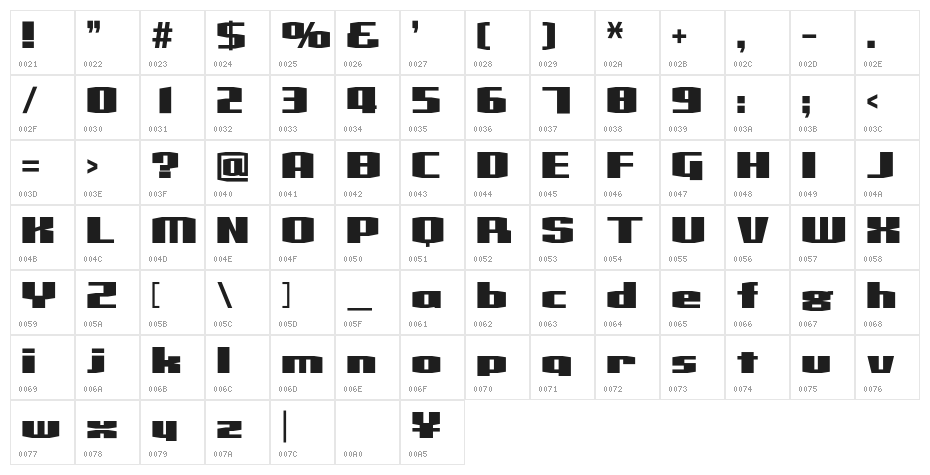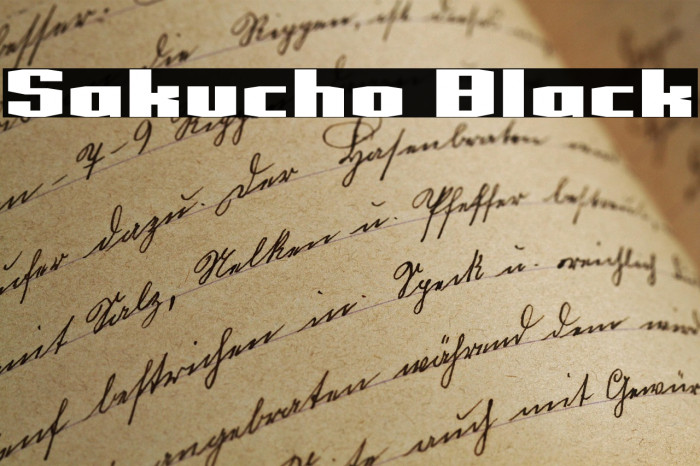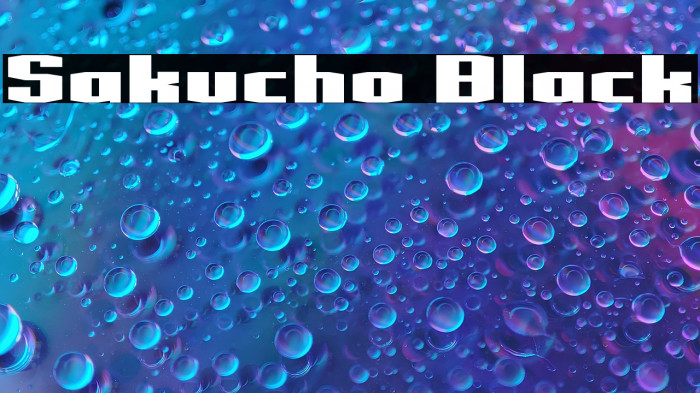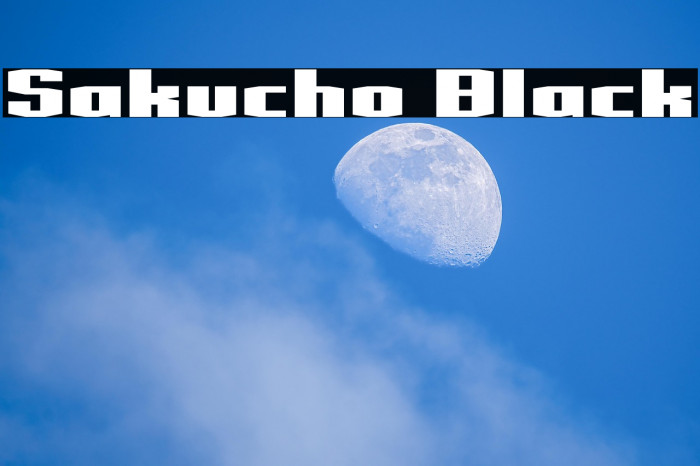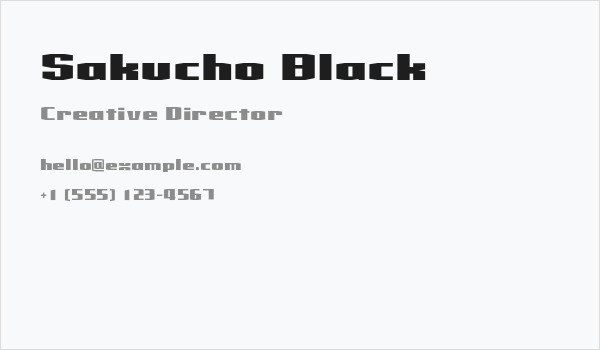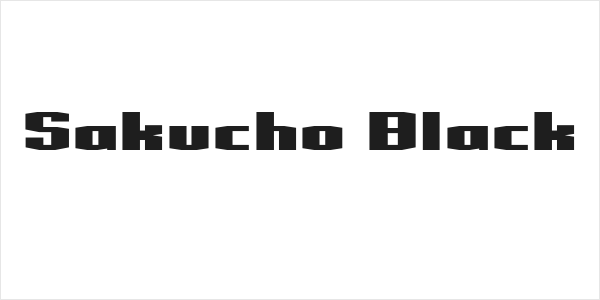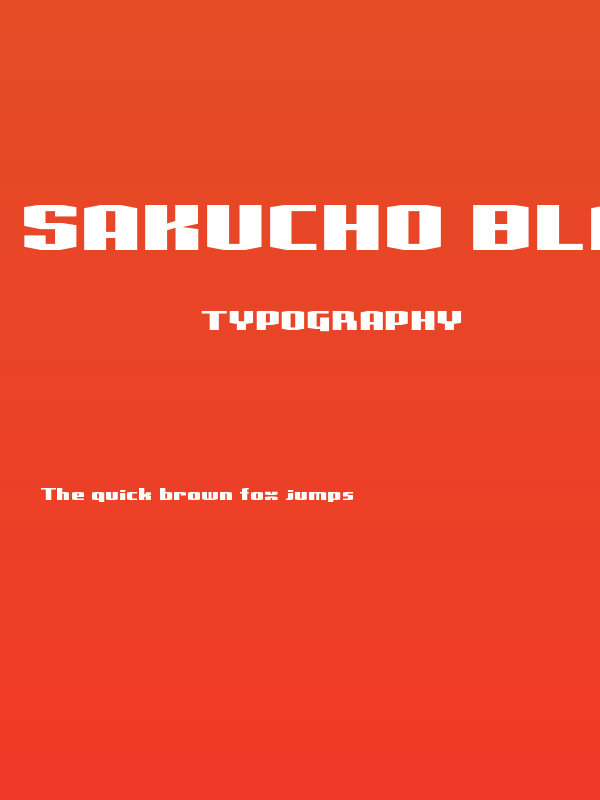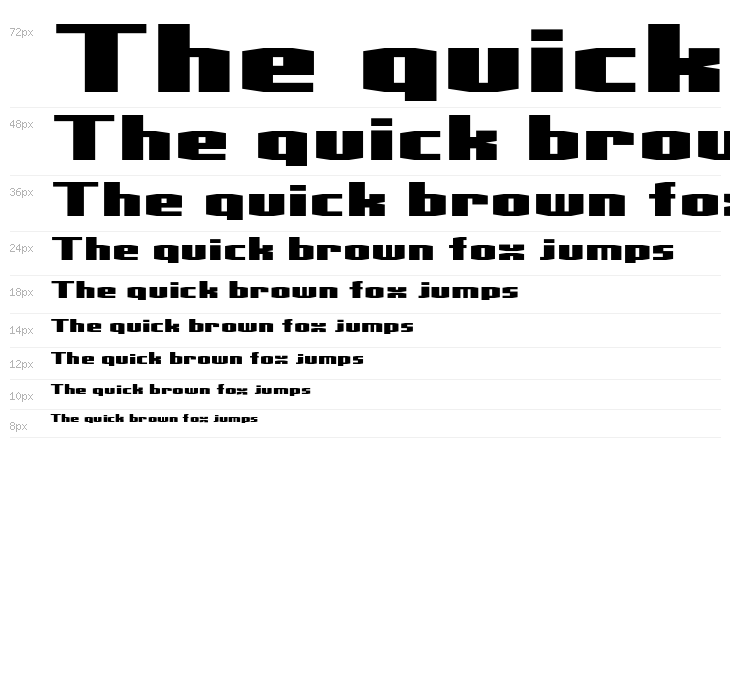
Sakucho Black Font
Sakucho Black Description
This font exhibits a bold and striking appearance, characterized by its thick, block-like letterforms that convey a sense of strength and modernity. The angular and geometric shapes of the characters create a futuristic and industrial feel, making it stand out prominently. The uppercase and lowercase letters maintain a consistent weight, contributing to a cohesive and uniform look. The numerals and special characters follow the same design principles, ensuring a harmonious overall style. The font's design is suitable for projects that require a bold statement and a contemporary aesthetic.